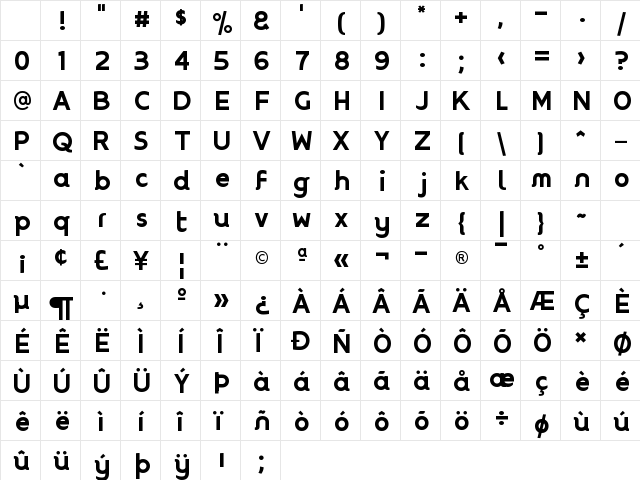
Complete Oliciy Regular glyph index. Displaying only characters natively supported by Oliciy Regular font.
Oliciy is a composed and adaptable typeface that performs quietly and consistently across a wide range of design contexts.